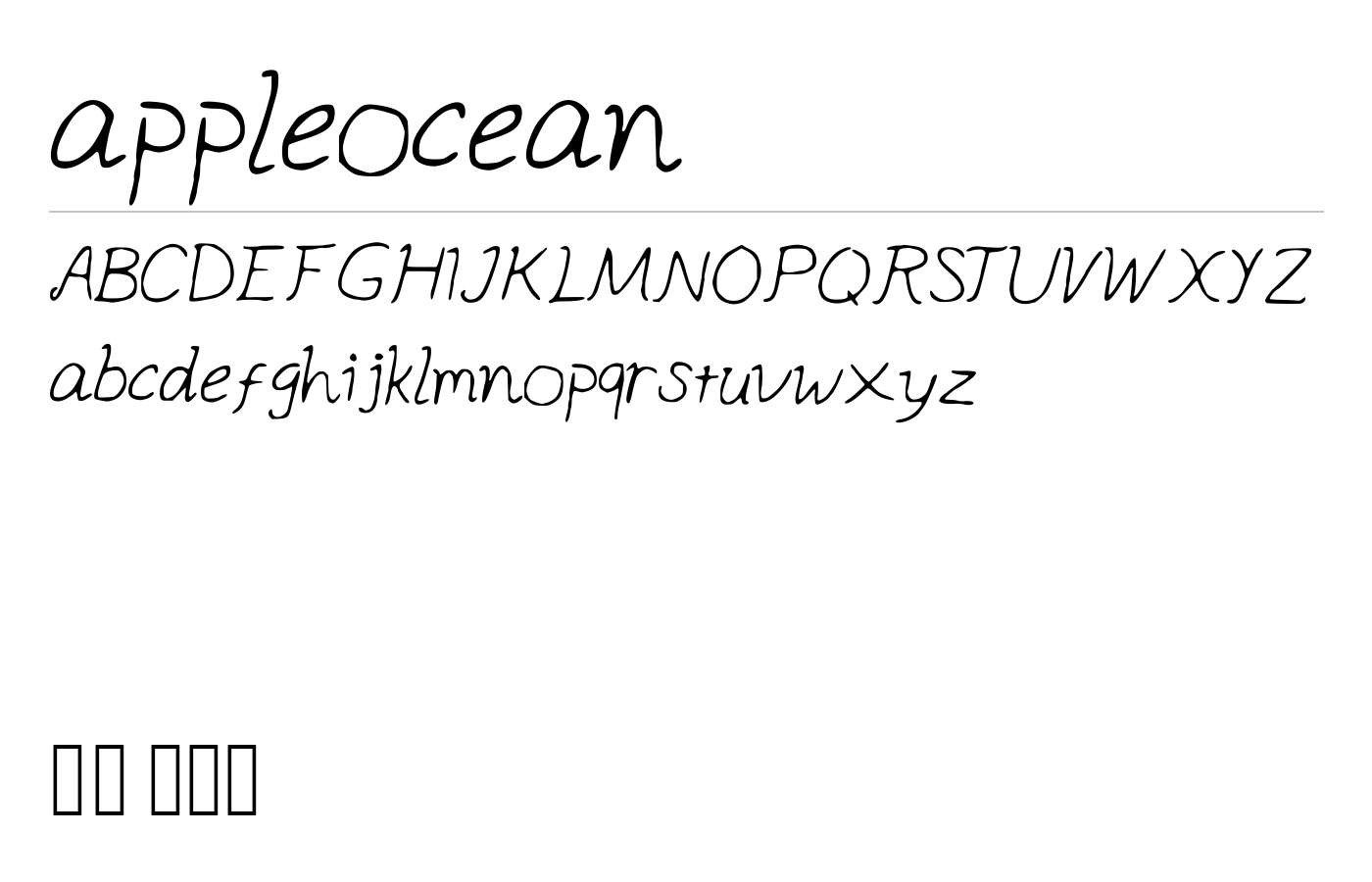
Appleocean is a delicate, handwritten script font with a casual and organic feel. Its slender strokes and lightly uneven curves give it a friendly, approachable personality, making it ideal for personal branding, creative projects, and informal invitations. The font's airy spacing and whimsical letterforms work beautifully in settings that call for a natural, artistic touch.
appleocean Font
About appleocean Font